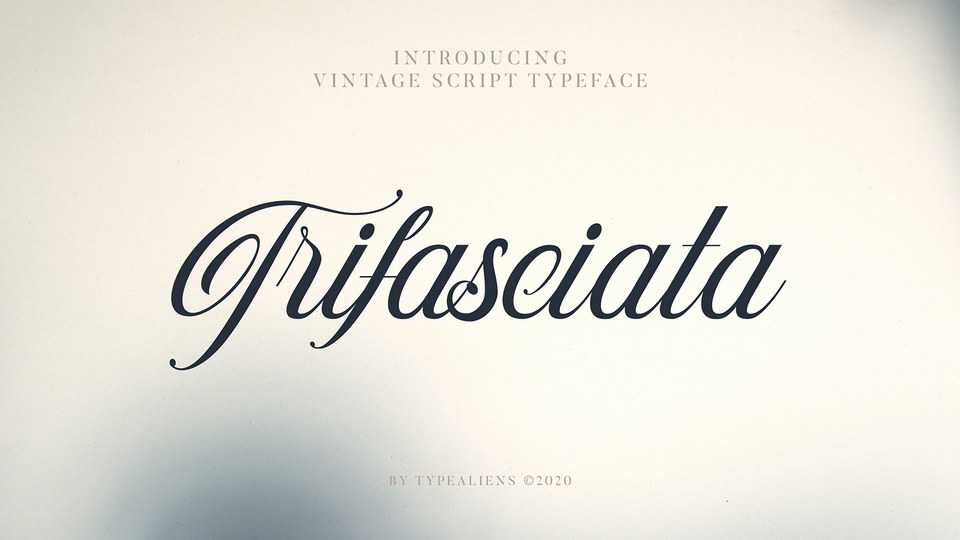
Download Trifasciata font, an elegant handwritten typeface. Trifasciata script font has a wide spectrum of applications ranging from greeting cards to headlines and is guaranteed to add a distinct feel to your next project.
Designer: Typealiens